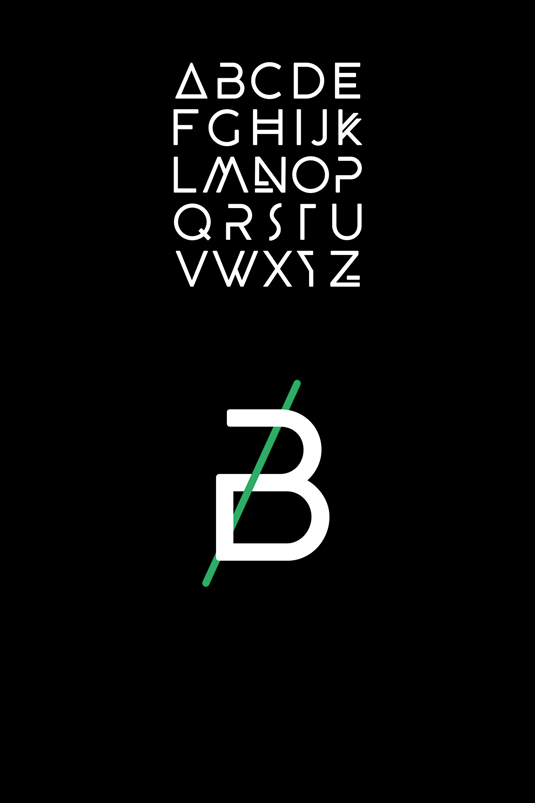
Font of the day: Beyno
Beyno by Fabian Korn
Swiss student Fabian Korn kicks our font of the day posts with his experimental design, Beyno. Developed in his spare time, Beyno is an uppercase design, which is great for creating eye-catching headlines, posters and much more.